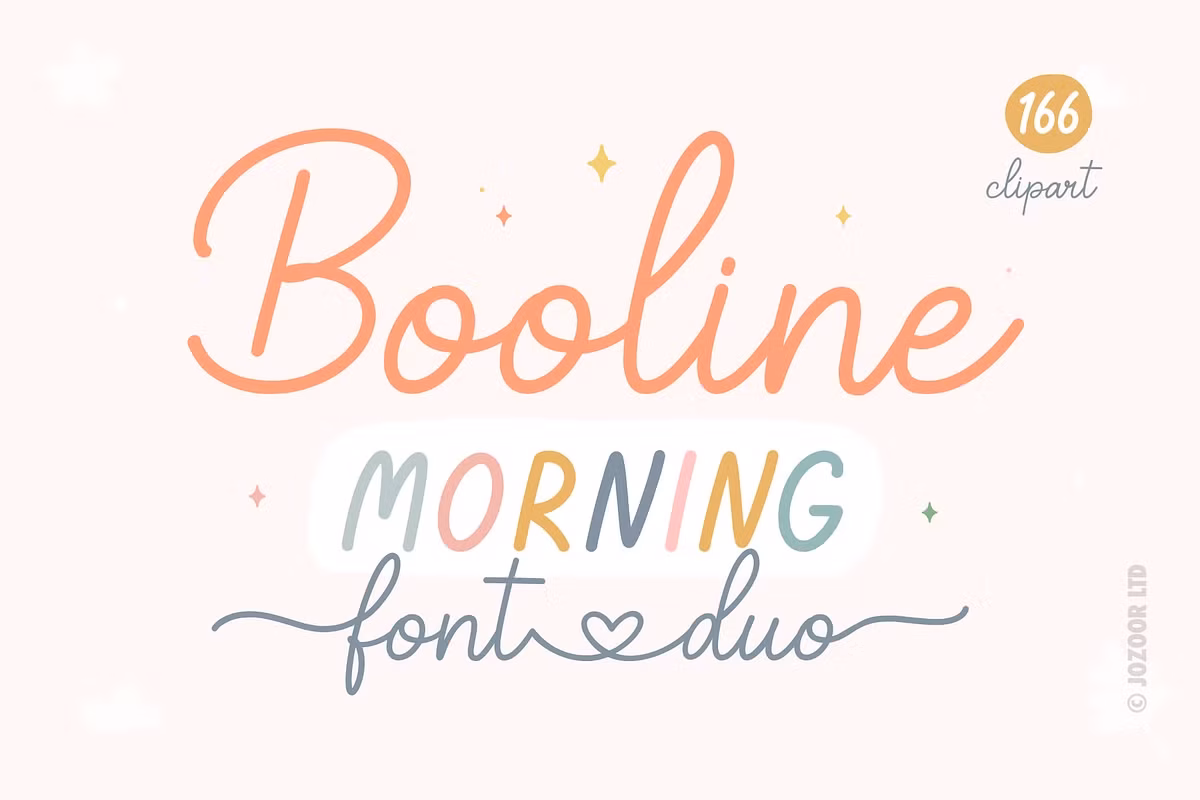
Booline Morning - Monoline Font Duo Free Download
Please note, to use this font for commercial purposes, you must purchase the full version. Booline Morning is a sleek and modern monoline font duo that combines a stylish script font with a clean and minimalistic sans-serif. Perfect for branding, websites, invitations, and promotional materials, this versatile font duo gives your designs a sophisticated yet approachable look. The elegant curves of the script font paired with the simplicity of the sans-serif create a unique and balanced design solution. Test it out and enjoy free download access for personal use. Use Booline Morning - Monoline Font Duo Free Download to experience its beauty and versatility before purchasing the commercial version. Elevate your creative projects with this stunning font duo.